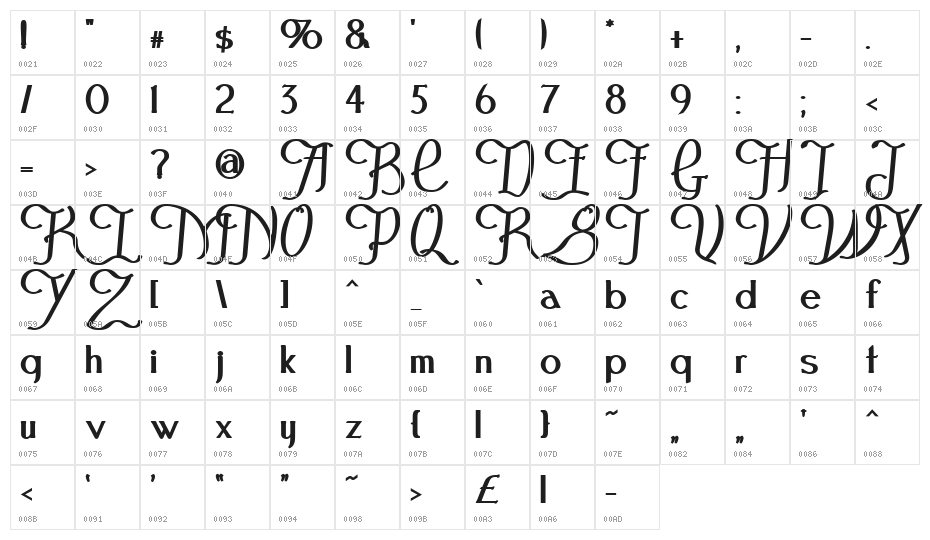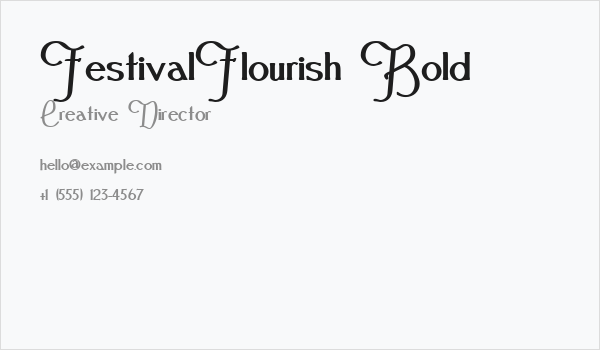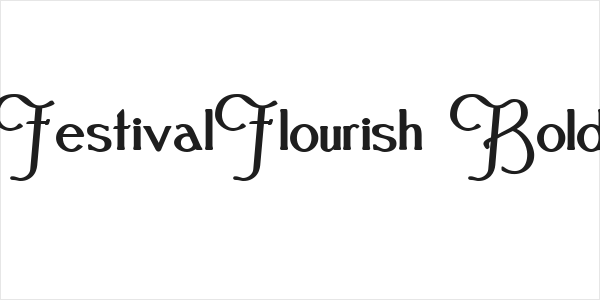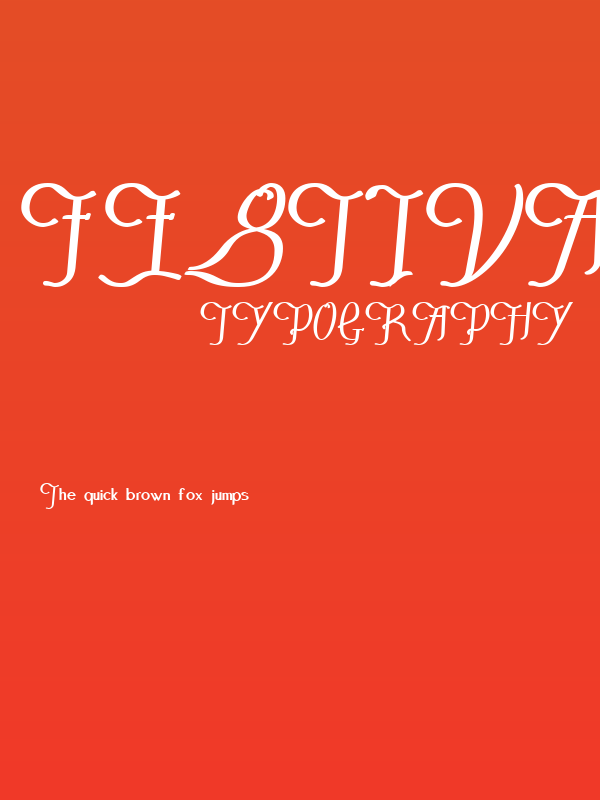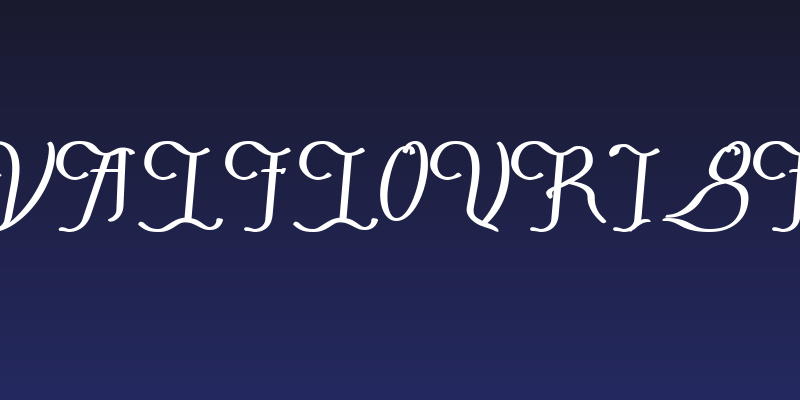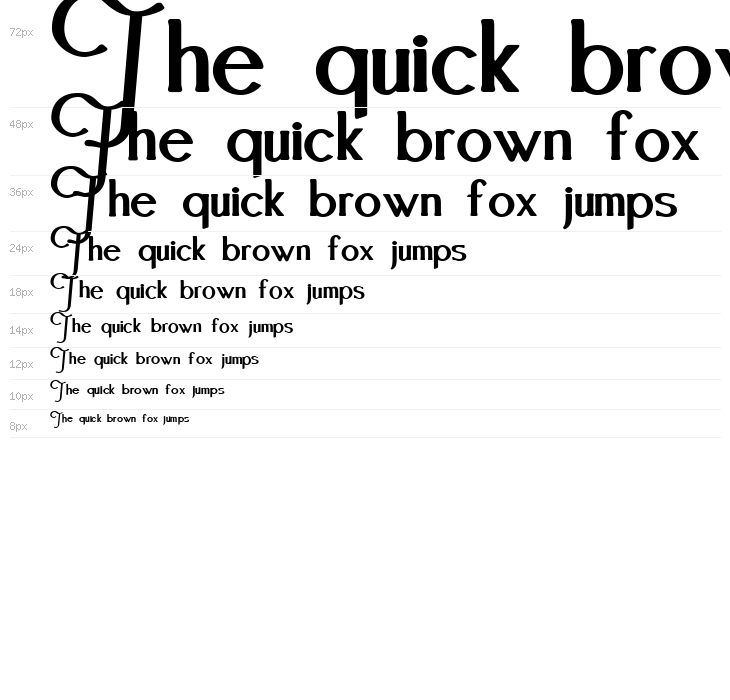
FestivalFlourish Bold Font
FestivalFlourish Bold Description
This font features a bold and decorative style with a flourish that adds an elegant touch to each character. The uppercase letters are designed with a sense of grandeur, making them stand out prominently. The lowercase letters maintain the decorative theme, offering a cohesive look across all text. Numbers and special characters are crafted with the same attention to detail, ensuring consistency throughout. The font's bold weight and decorative elements make it suitable for projects that require a touch of sophistication and flair.
| Proposed Projects | Ideal for wedding invitations, event posters, branding materials, and decorative headings. |